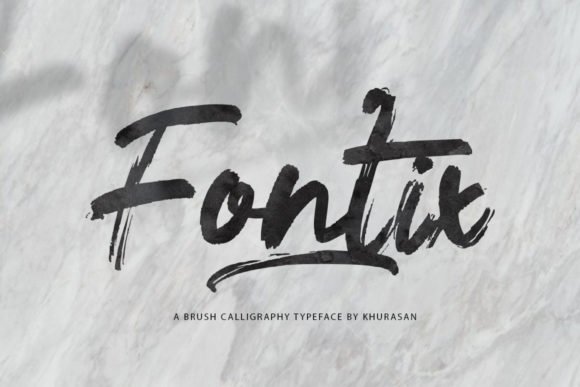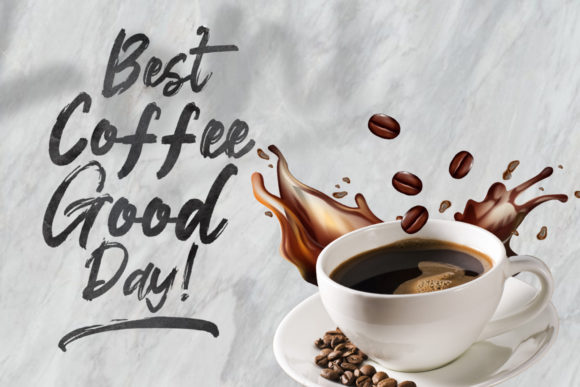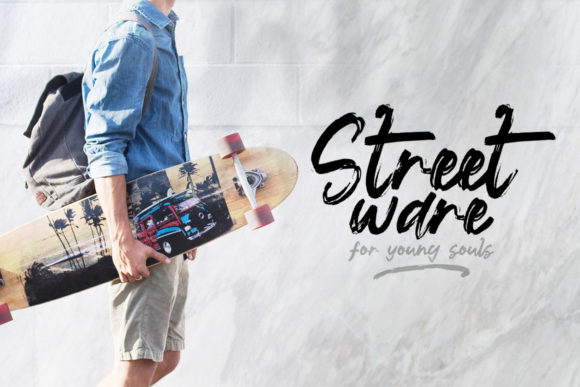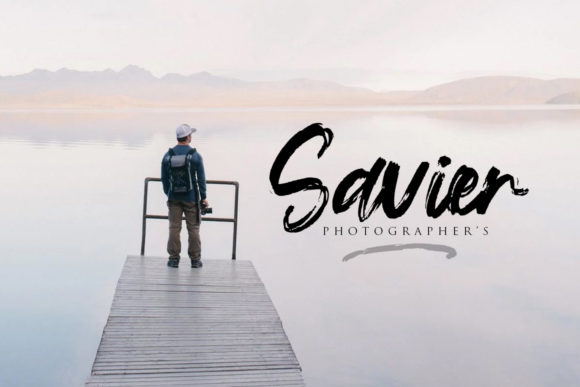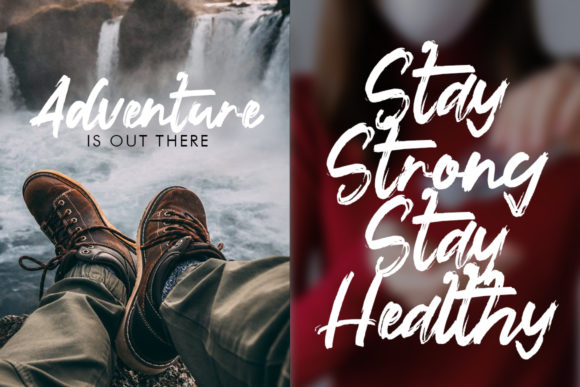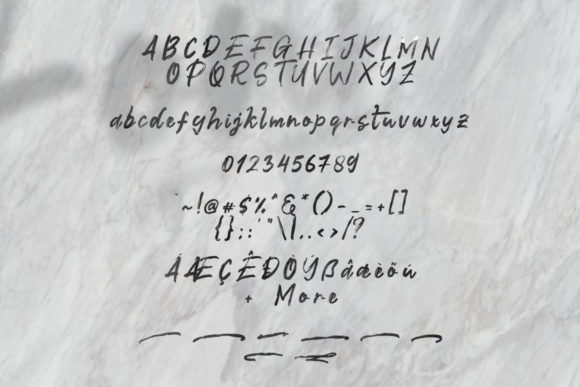
When Words Take on a Life of Their Own
Have you ever been brainstorming for hours, pouring over ideas, and suddenly, it hits you – that one perfect concept that makes your project stand out? For designers, these moments are what make all the late nights and early mornings worth it. And for those who love to create, there’s something special about seeing your vision come to life. That’s exactly what happens when you pair the right words with the right font, like the Fontix Font.
The Fontix Font is a casual, fun handwritten font, crafted with a brush pen for a clean and quirky feel. It’s perfect for logos, branding, social media, and those crafty DIY projects that require a touch of personality. With the Fontix Font, designers can add a unique touch to their work, making it stand out from the crowd and leaving a lasting impression. Whether you’re a seasoned pro or just starting out, this font is a valuable addition to any design toolkit.
Fontix Font Key Features
- Character Set: The font includes a comprehensive character set, covering Latin, Cyrillic, and Greek alphabets, as well as various symbols and punctuation marks.
- Unique Characteristics: The font features a unique blend of modern and vintage elements, with subtle flair and elegance, making it suitable for a wide range of design applications.
- Language Support: The font supports multiple languages, including English, Spanish, French, German, Italian, Portuguese, and many others, making it a versatile choice for global design projects.
Fontix Font Review
Fontix Font is an interesting addition to the font family, offering a unique blend of modern and vintage elements. One thing that really stands out is its versatility ✨ – it works well in both body text and headings, making it a great choice for a wide range of design projects.
Another strength of Fontix Font is its legibility ✨. The font is clear and easy to read, even at smaller font sizes. This makes it an excellent choice for digital projects where text will be viewed on smaller screens.
While Fontix Font has many strengths, it does have some limitations ⚠️. For one, the font lacks a bold weight, which can make it difficult to create clear hierarchy in your designs. Additionally, the font’s vintage elements can sometimes feel inconsistent, which can be jarring for some users.
- May require additional styling to create clear hierarchy
- Vintage elements can feel inconsistent
Overall, I would say that Fontix Font is a solid choice for designers looking for a unique and versatile font. While it may have some limitations, its strengths make it a great addition to any design project.
Fontix Font: A Comprehensive Guide
Getting the Most Out of Fontix Font
Here are some tips to get the most out of Fontix Font:
- Combine Fontix Font with other fonts to create a unique and visually appealing design.
- Use Fontix Font in conjunction with bold or italic text to add emphasis.
Fontix Font is ideal for:
- Graphic design and branding.
- Print materials, such as business cards and brochures.
- Choose a bold or italic version of Fontix Font to add emphasis.
- Pair it with distressed textures or vintage patterns to create a retro look.
- Use Fontix Font in a large, bold font size to draw attention to the main message.
- Pair Fontix Font with a bold, contrasting color to make it stand out.
- Use vintage-style icons or graphics to add a touch of nostalgia.
- Choose a cursive or script version of Fontix Font to mimic hand-drawn lettering.
- Pair it with hand-drawn illustrations or doodles to add a playful touch.
- Use Fontix Font in a more subtle font size to let the hand-drawn elements take center stage.